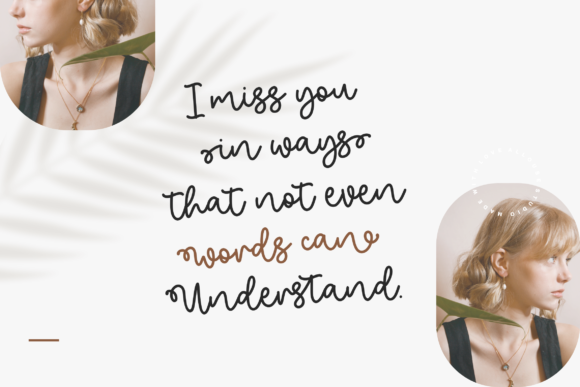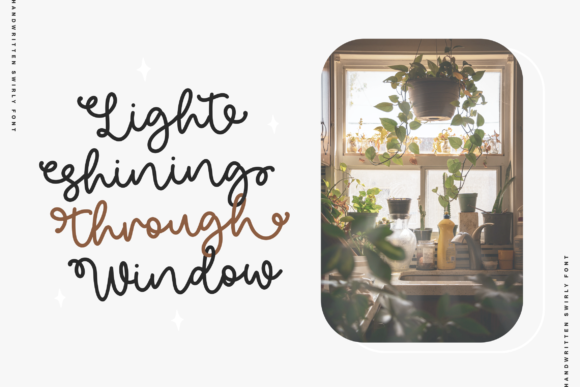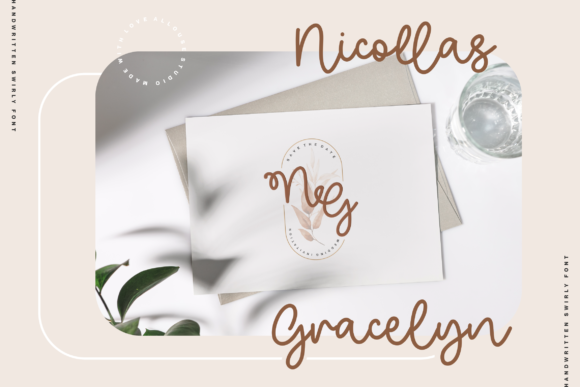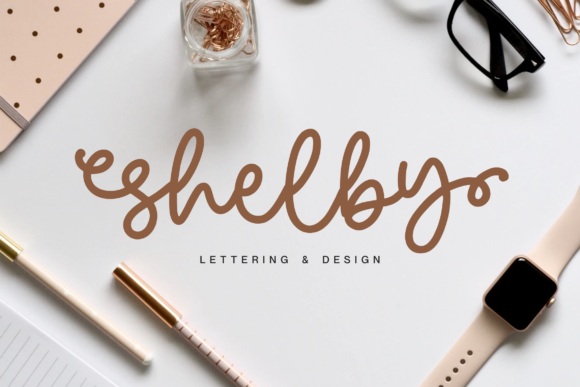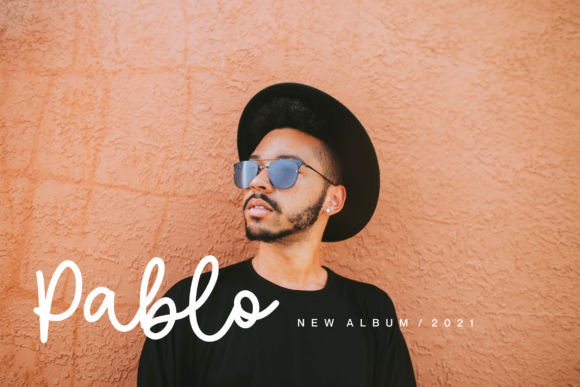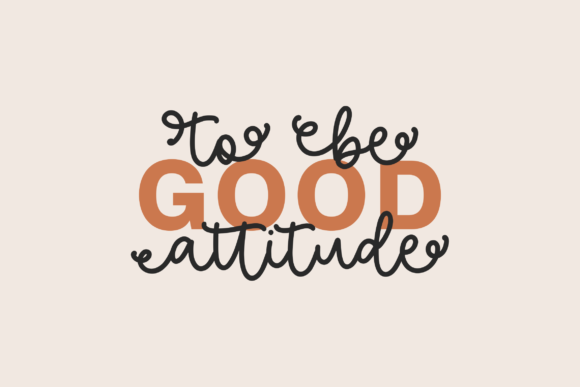
Introducing Goldiolus Font: Elevate Your Designs with a Whimsical Script Font
Are you tired of using the same old fonts in your designs? Do you want to add a touch of whimsy and elegance to your creations? Look no further than the Goldiolus font, a beautiful script font that is sure to become a staple in your font library. With its relaxed theme and lovely style, Goldiolus is the perfect choice for designers and crafters looking to elevate their work.
What is Goldiolus Font?
Goldiolus is a whimsical script font that features a unique and elegant style. Its relaxed theme makes it perfect for a wide range of design projects, from wedding invitations and greeting cards to blog posts and social media graphics. With Goldiolus, you can add a touch of sophistication and whimsy to any creation, making it stand out from the crowd.
Key Features of Goldiolus Font
So, what makes Goldiolus font so special? Here are just a few of its key features:
- Whimsical script style: Goldiolus features a beautiful, flowing script style that is perfect for adding a touch of elegance to your designs.
- Relaxed theme: The font’s relaxed theme makes it perfect for a wide range of design projects, from formal to informal.
- PUA encoded: Goldiolus is PUA encoded, which means you can access all of the glyphs and swashes with ease.
- Easy to use: With its simple and intuitive design, Goldiolus is easy to use, even for those who are new to script fonts.
Benefits of Using Goldiolus Font
So, why should you choose Goldiolus font for your designs? Here are just a few of the benefits of using this amazing font:
- Elevate your designs: With its unique and elegant style, Goldiolus is sure to elevate your designs and make them stand out from the crowd.
- Versatile: Goldiolus is perfect for a wide range of design projects, from wedding invitations and greeting cards to blog posts and social media graphics.
- Easy to read: Despite its whimsical style, Goldiolus is easy to read, making it perfect for body text and other long-form content.
- Time-saving: With its PUA encoding, you can access all of the glyphs and swashes with ease, saving you time and effort.
Who is Goldiolus Font Perfect For?
Goldiolus font is perfect for a wide range of designers and crafters, including:
- Graphic designers: Whether you’re working on a client’s project or your own, Goldiolus is a great choice for adding a touch of elegance and whimsy to your designs.
- Wedding planners: With its romantic and elegant style, Goldiolus is perfect for wedding invitations, save-the-dates, and other wedding-related design projects.
- Crafters: If you’re a crafter who loves to make things like cards, scrapbook pages, and other paper crafts, Goldiolus is a great choice for adding a touch of personality to your projects.
- Bloggers and social media managers: Goldiolus is also perfect for bloggers and social media managers who want to add a touch of elegance and whimsy to their content.
In conclusion, Goldiolus font is a beautiful and versatile script font that is sure to become a staple in your font library. With its whimsical style, relaxed theme, and PUA encoding, Goldiolus is perfect for a wide range of design projects, from wedding invitations and greeting cards to blog posts and social media graphics. Whether you’re a graphic designer, wedding planner, crafter, or blogger, Goldiolus is a great choice for adding a touch of elegance and whimsy to your creations.